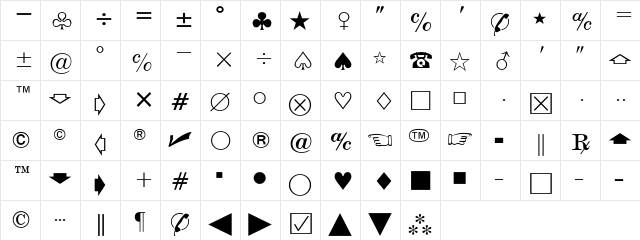
Univ NewsCommPi Regular
Design Context for Univ NewsCommPi Typeface
Univ NewsCommPi takes a measured approach to typography — its balanced proportions and neutral character make it a reliable workhorse for both digital and print work.